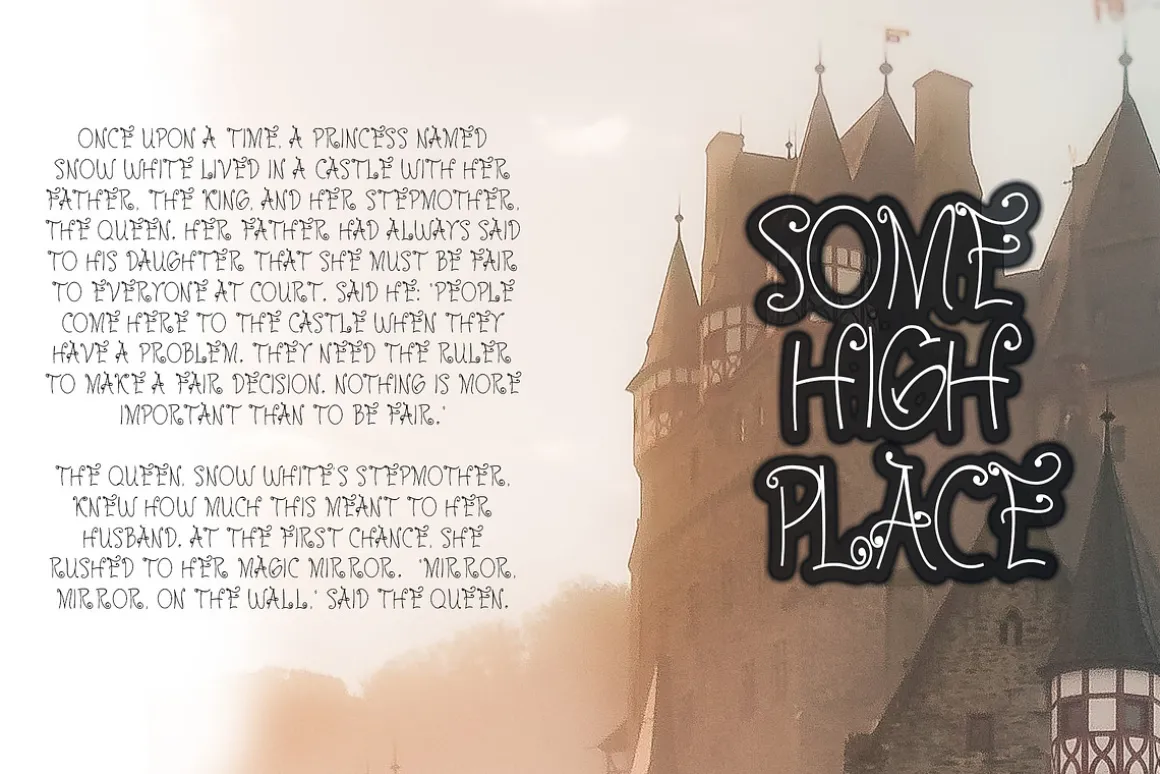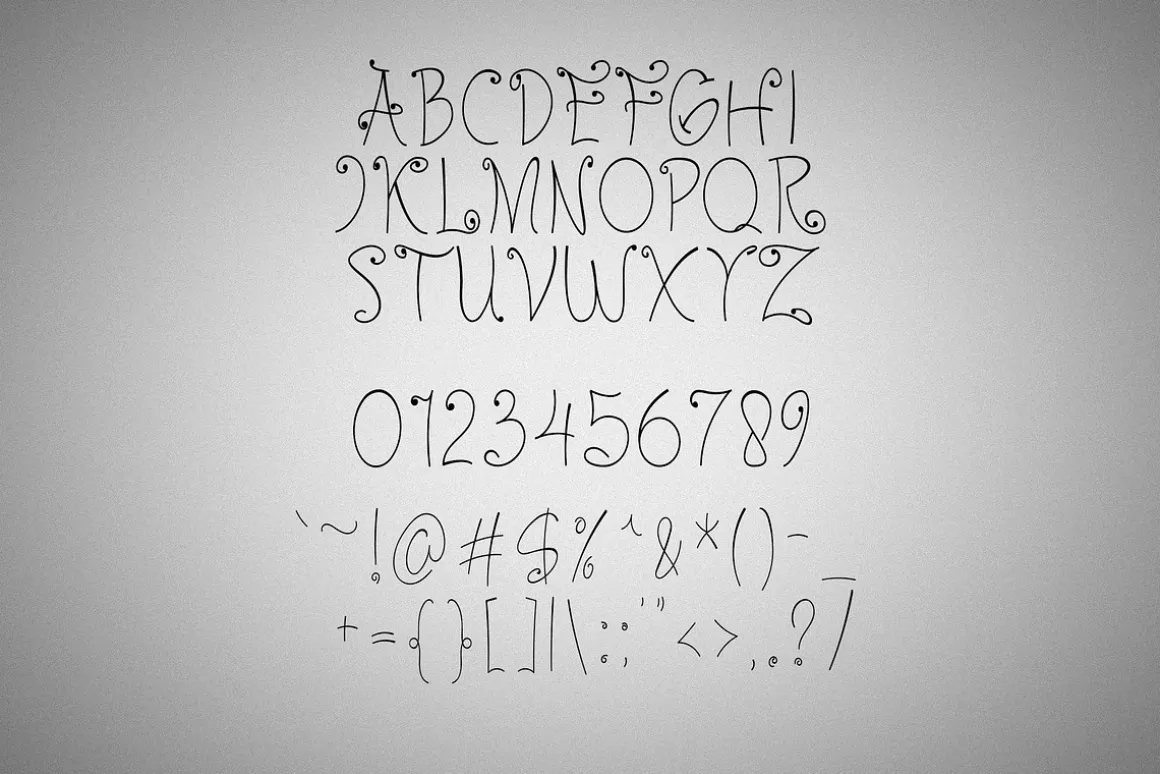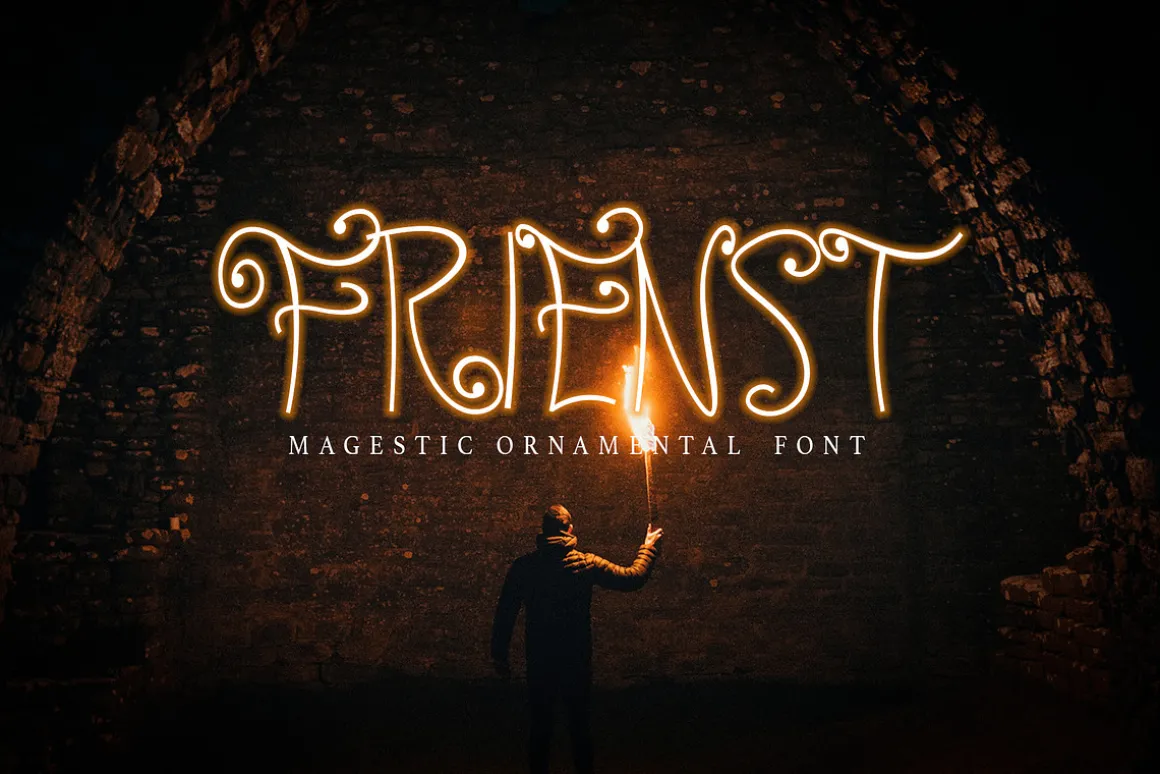
Introducing Frienst, a magestic ornamental with fairytale vibe and aura Symbol Font.So perfect for you who needs a typeface for logo designs, magazine, social media, brochure, and many more.
Features
- Uppercase
- Numerals
- Punctuation